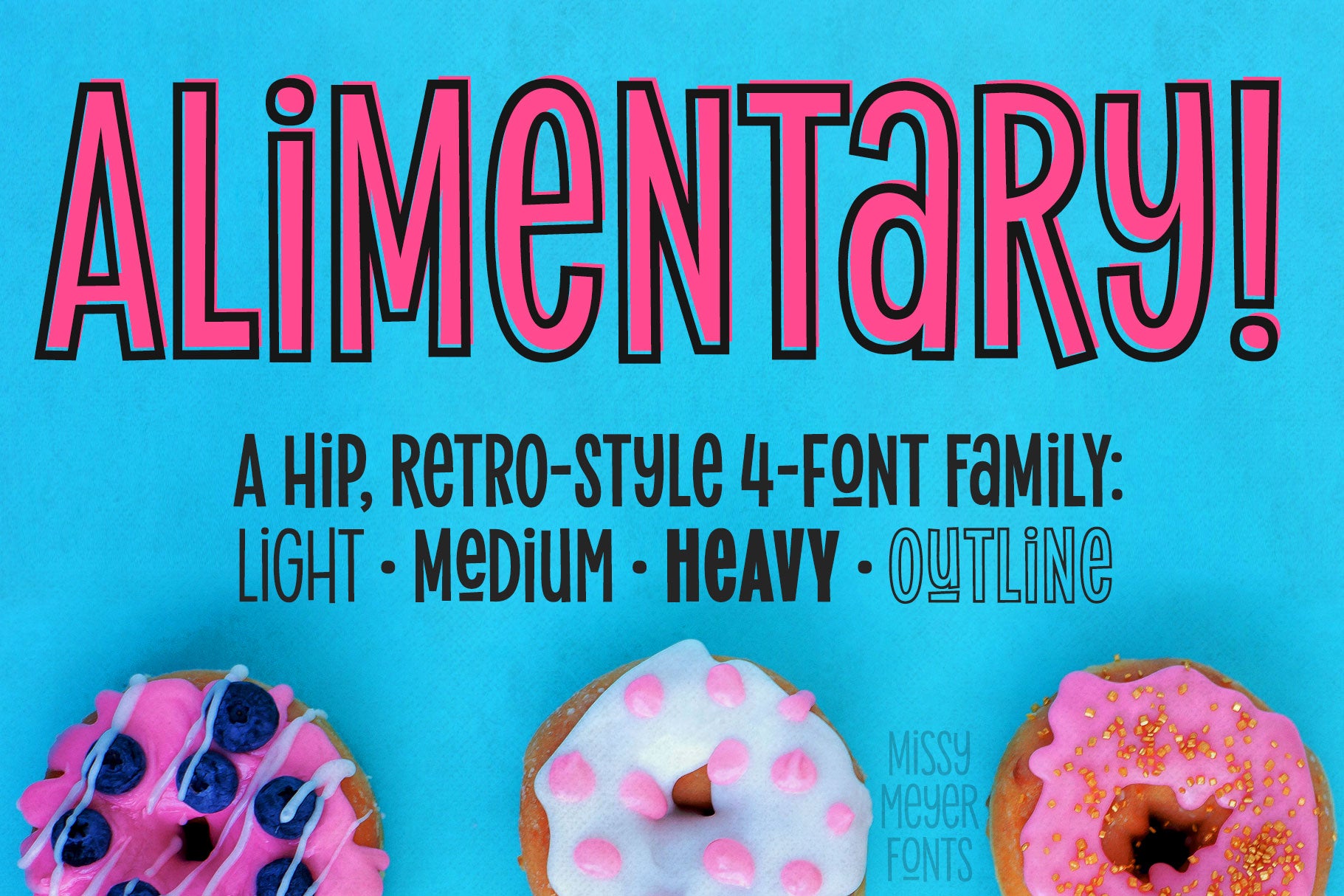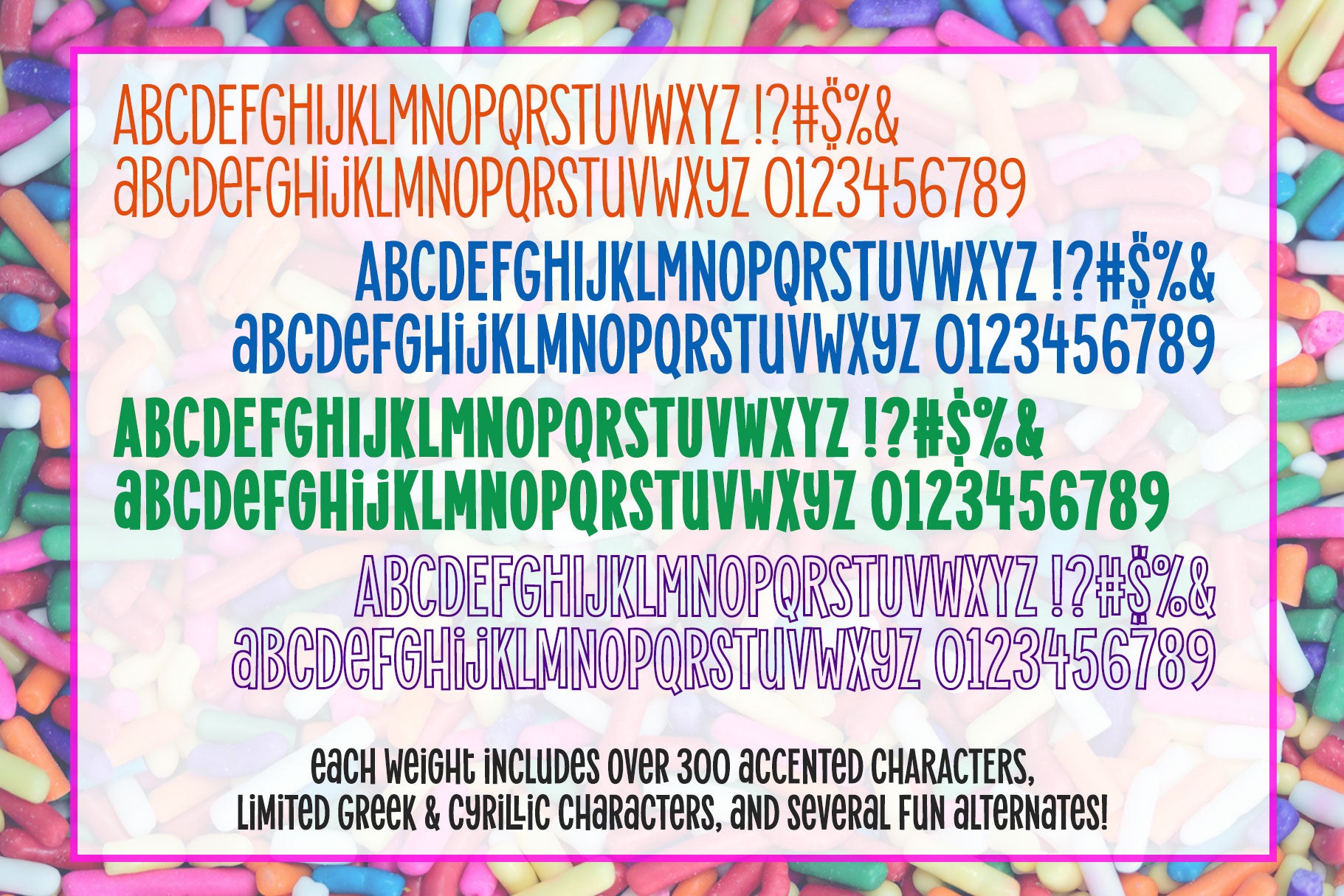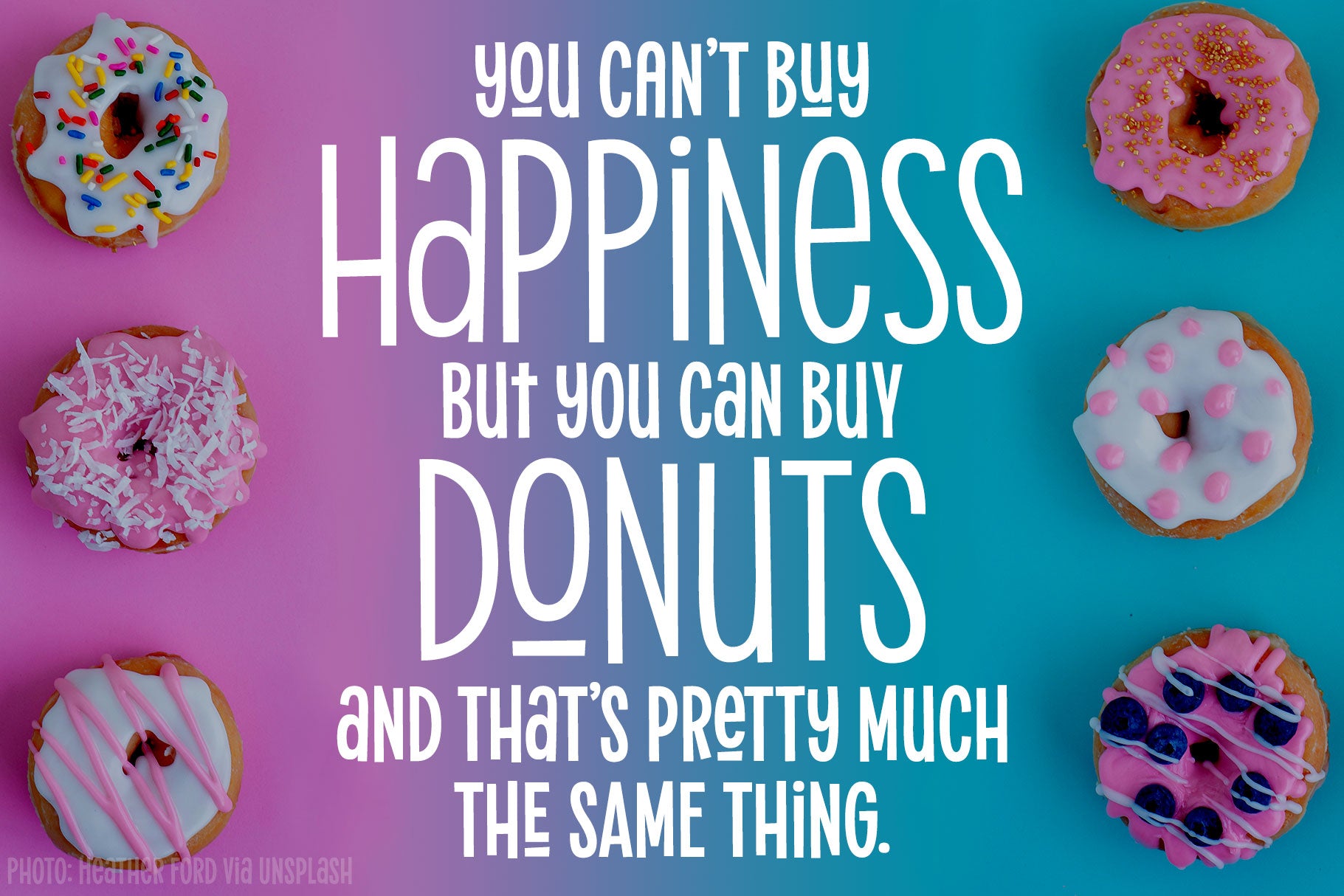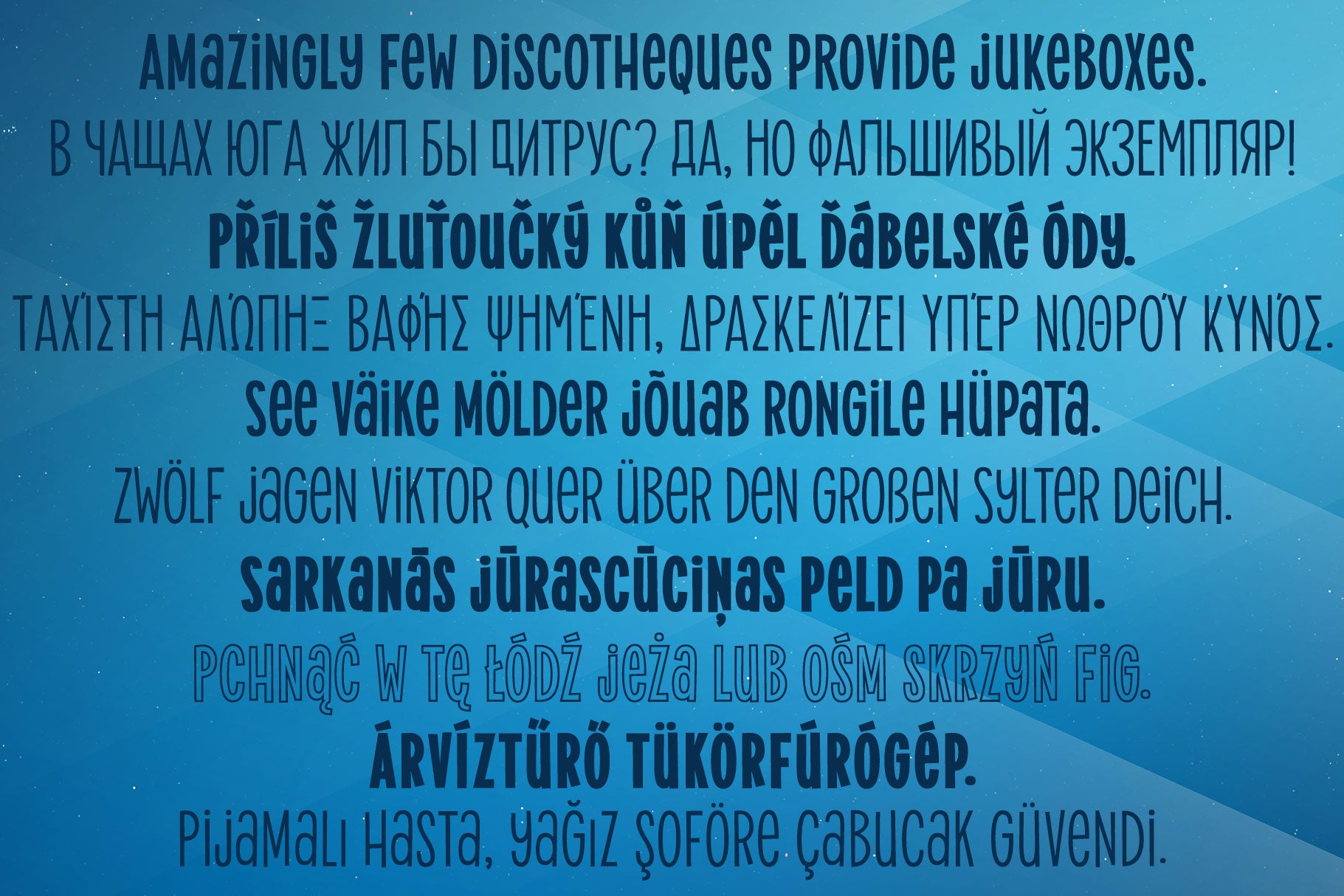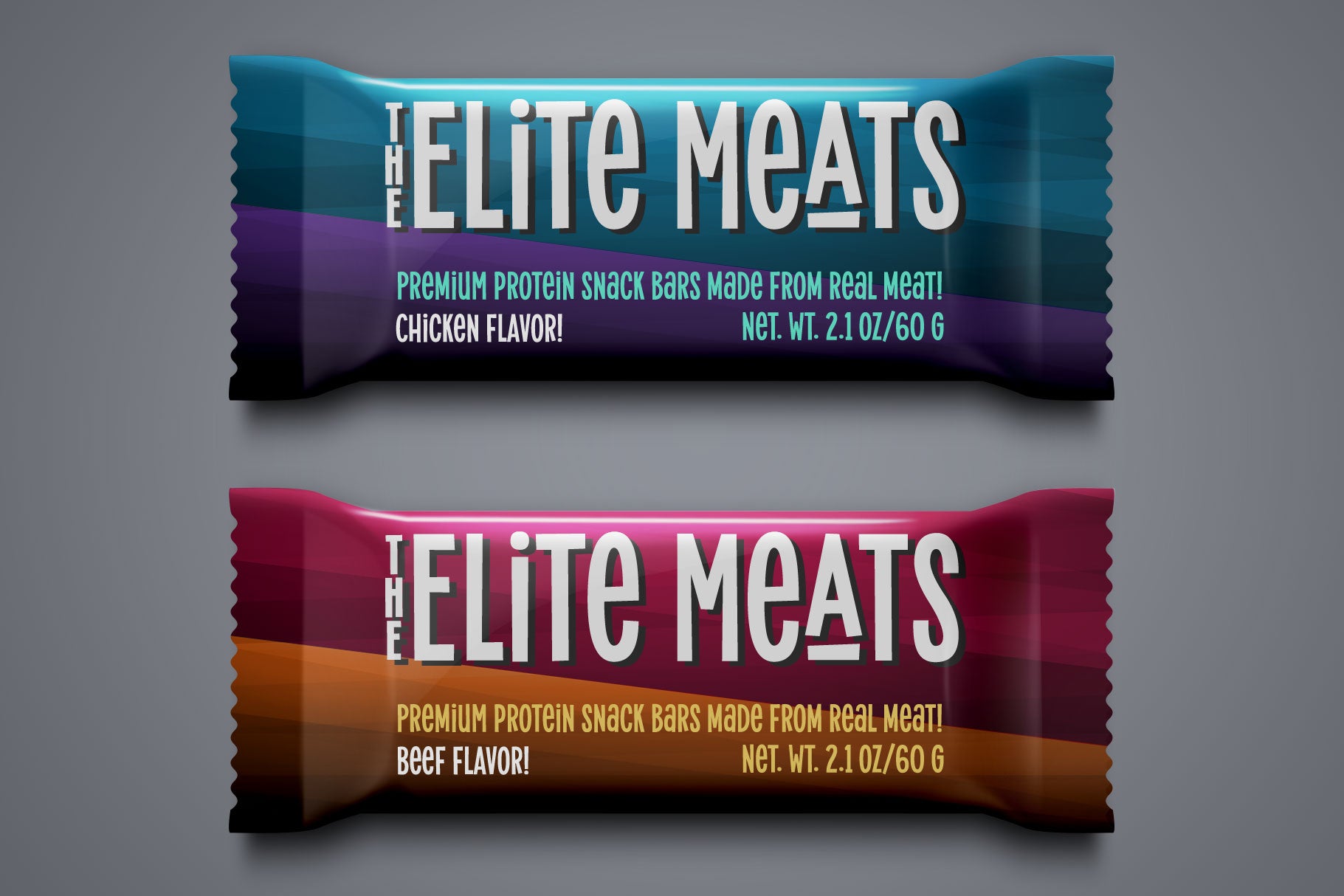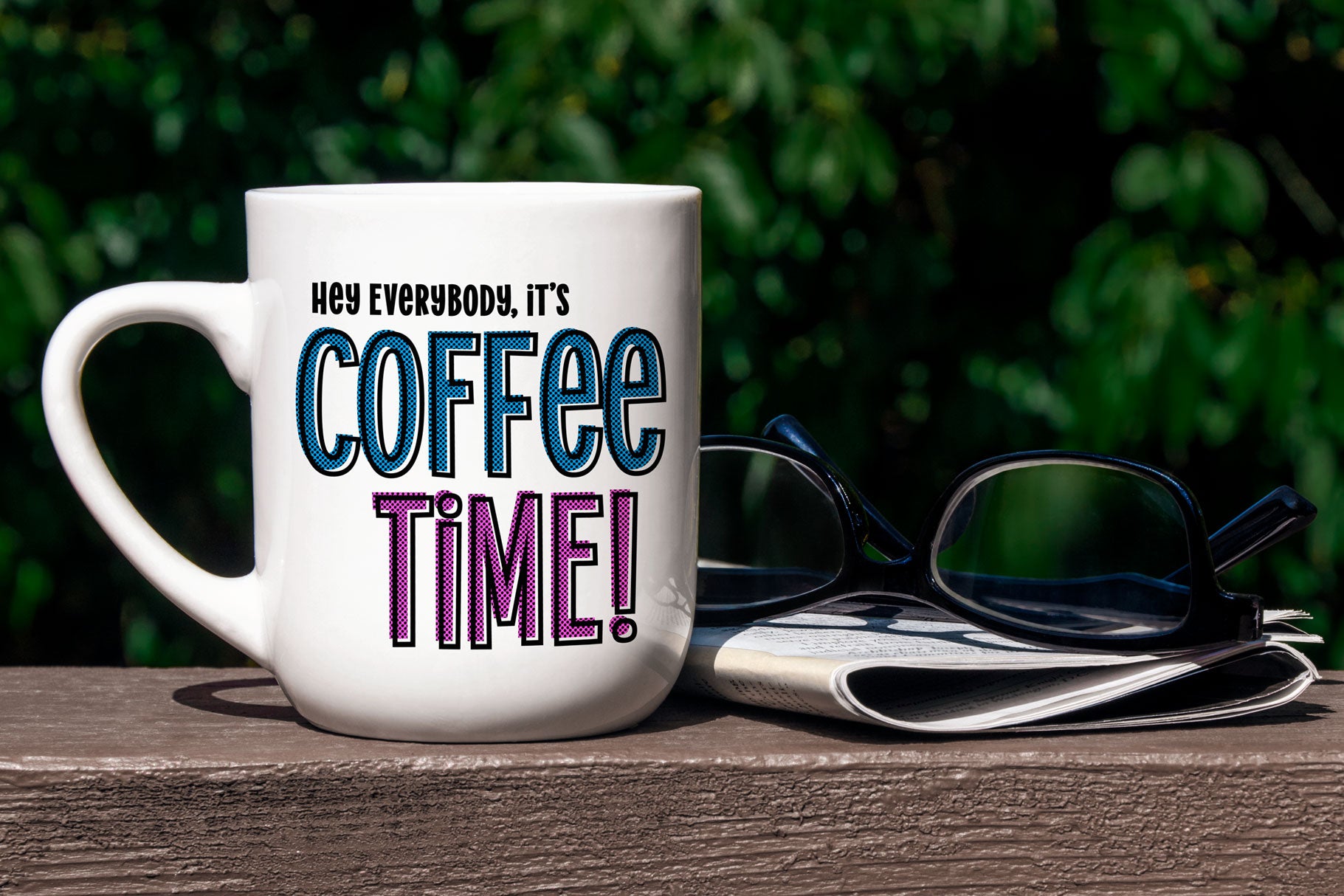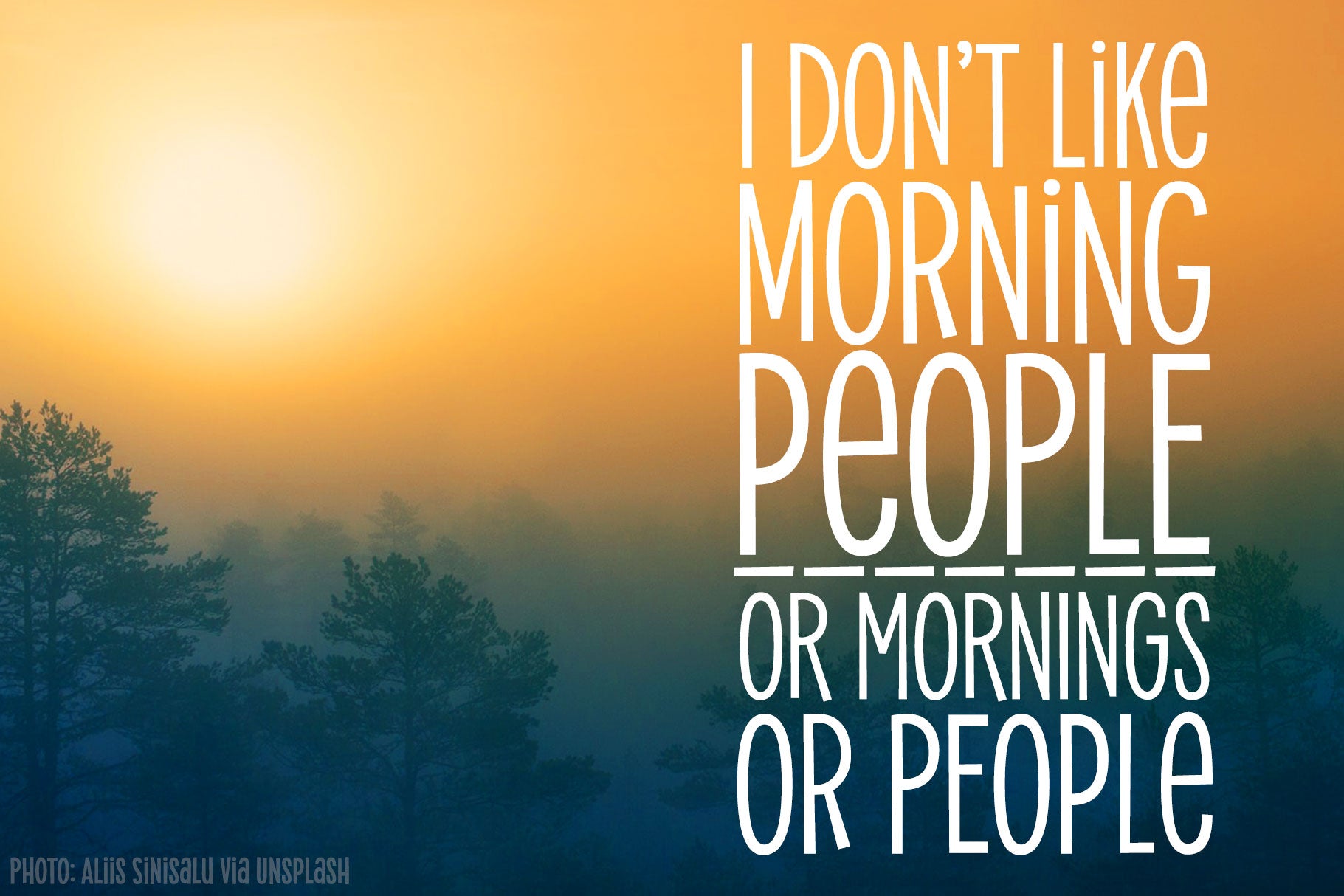
Alimentary (adjective): relating to nourishment or sustenance. If you've seen my other fonts, you know I tend to lean into food-based names. This name has to do with food and science combined, so it's double nerdy in the ways I like to be nerdy!
I started with Alimentary Medium—I wanted something taller, narrower, with a hip and retro feel. When I finished the Medium weight, I felt like I wanted a Light weight. Then a Heavy weight. Then I figured, "what the heck," and made an outline version of the Medium weight too.
In the end, I wound up with four members of the Alimentary family, each with over 700 glyphs! Not only do they all have the basics (A-Z, a-z, 0-9, and tons of punctuation), but they also each have 330 extended characters for European language support, and a limited selection of Greek, Coptic, and Cyrillic characters. Plus a double handful of alternates and ligatures to add a little variety to your designs!
And of course, all of the Alimentary fonts are super-smoothed, with reduced nodes and clean curves, so whether you're cutting them out, printing them, engraving them, or using them in a way I haven't even thought of, these fonts will be sharp and crisp!